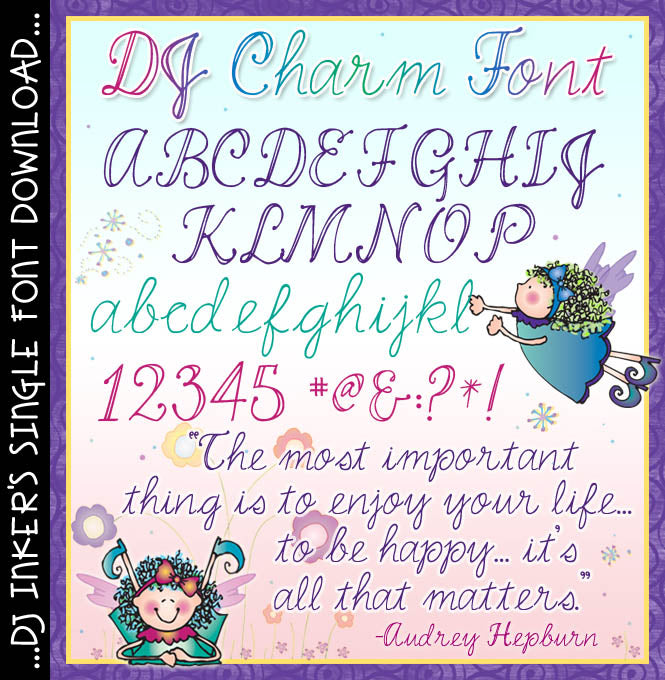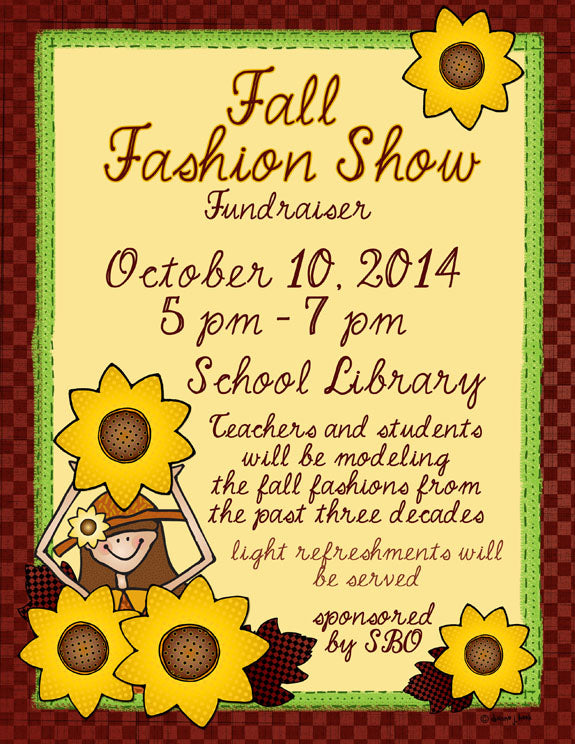
DJ Charm Font Download
Anything you type with this sweet cursive font will have a certain 'DJ Charm!' Use
this font to bring a smile to your notes & letter writing, greeting
cards, scrapbooks, special party invitations & MORE. Try it in any